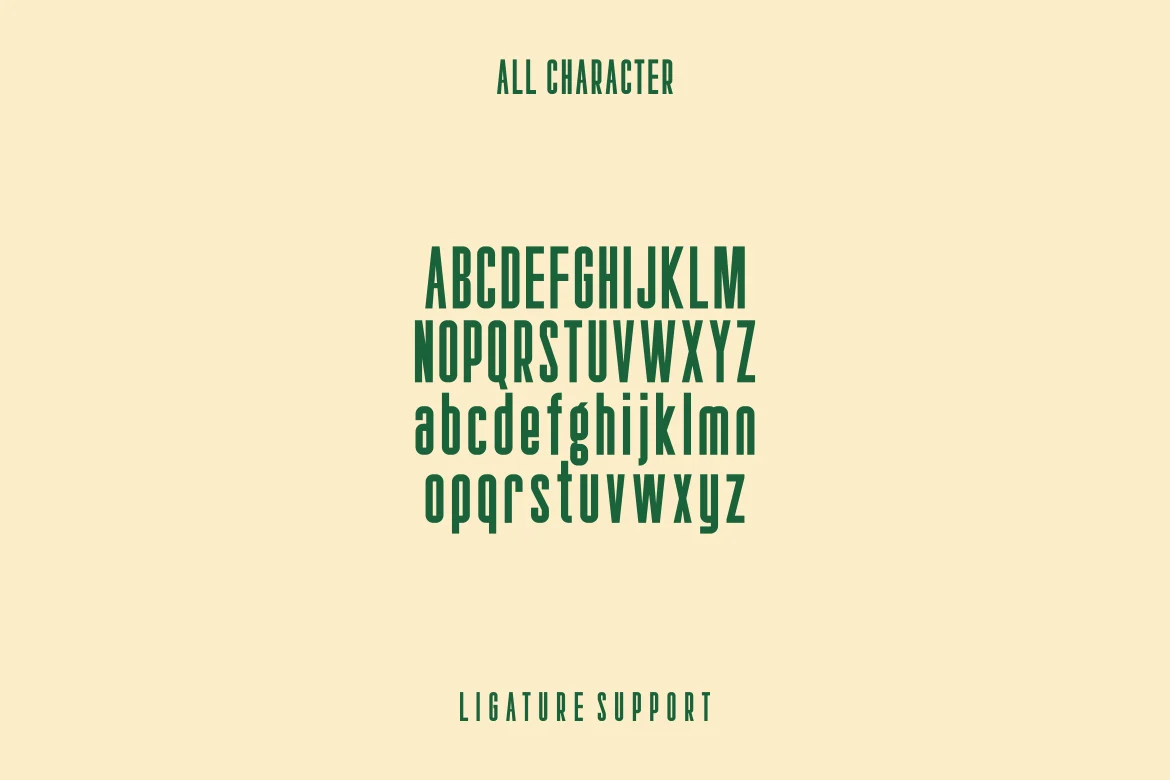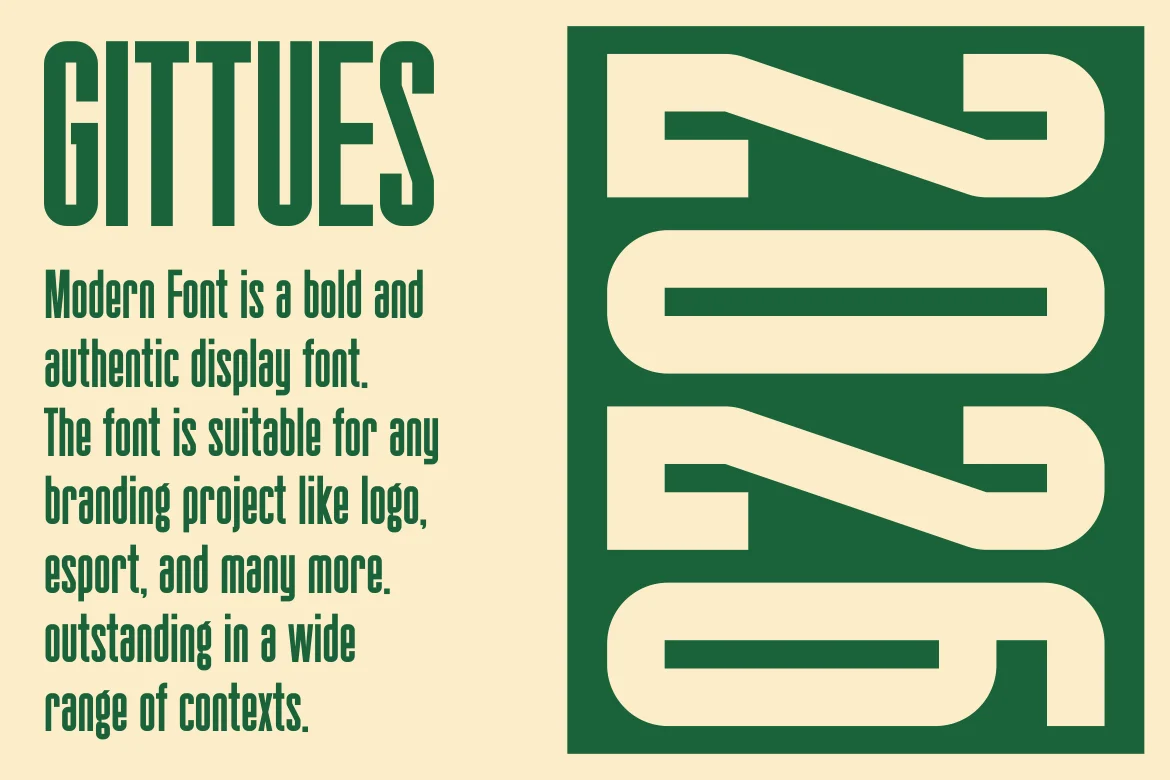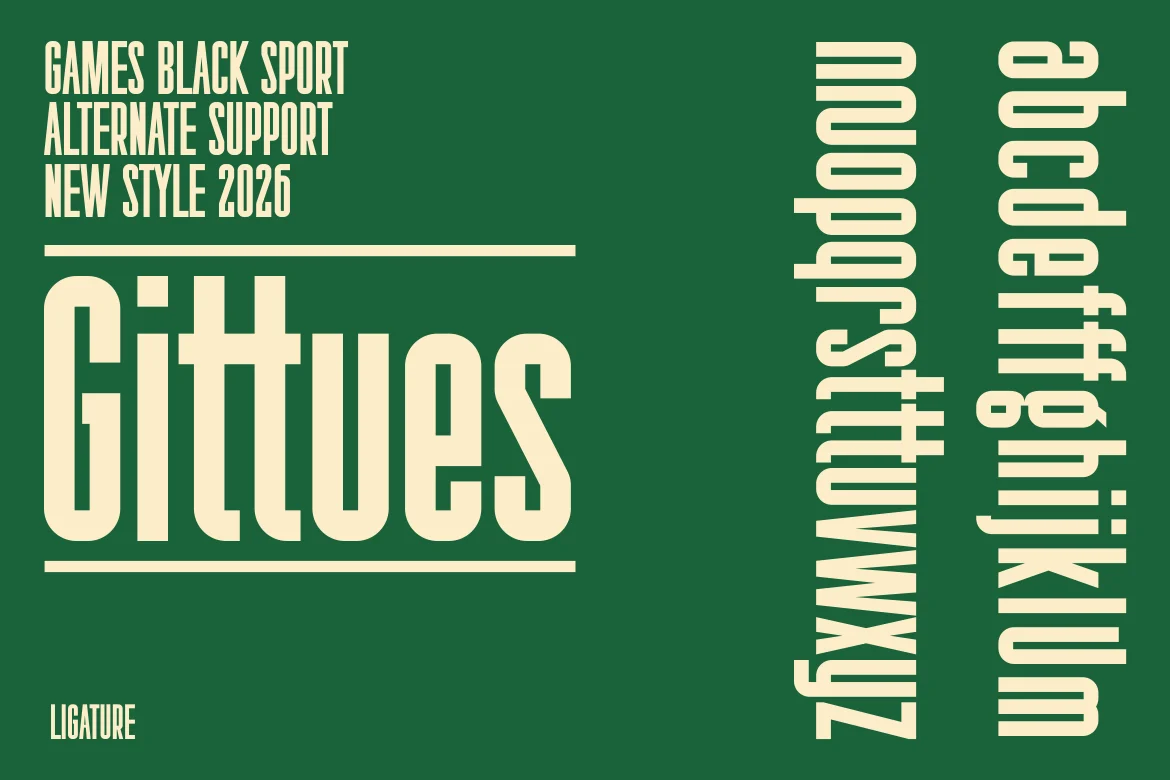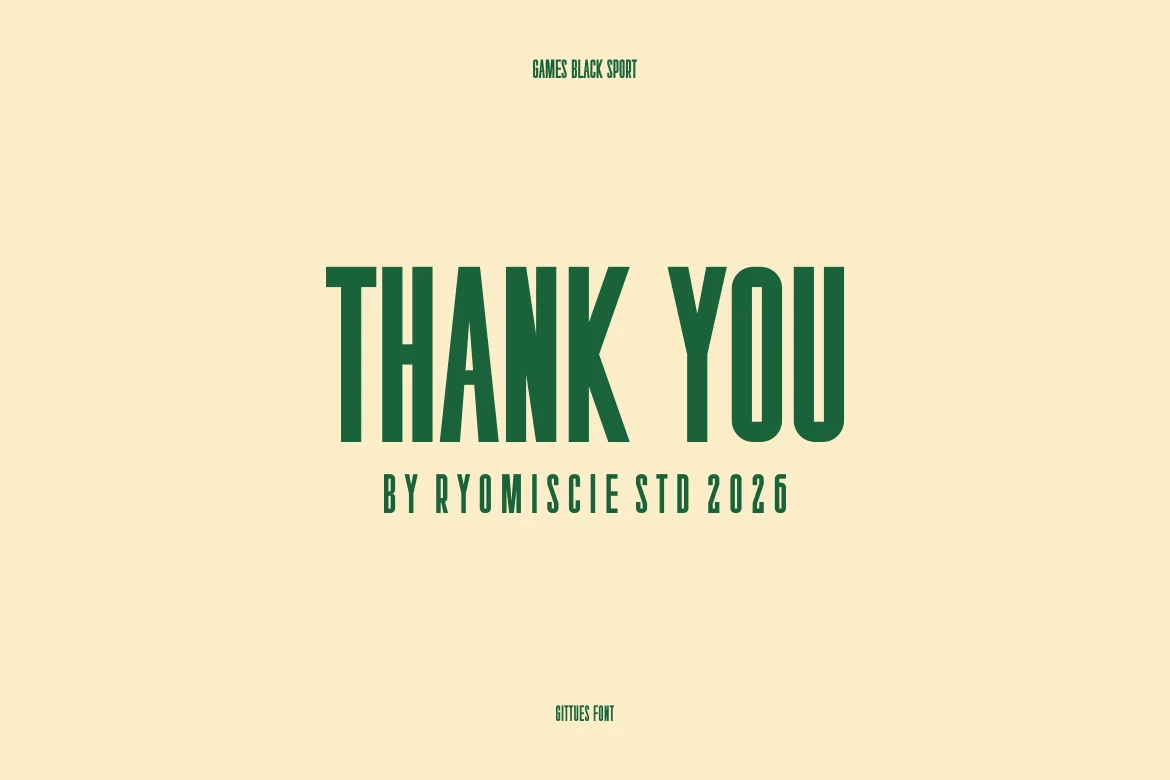
Introducing our new product Gittues - Games Black Sport Font
Gittues - Games Black Sport Font is a bold and authentic display font. The font is suitable for any branding project like logo, esport, and many more. outstanding in a wide range of contexts.